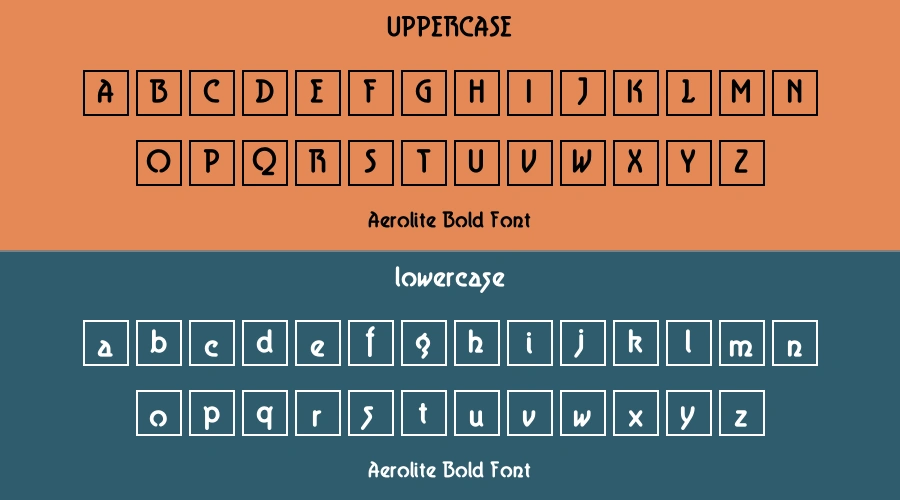
About Aerolite Bold Font
Aerolite Bold Font stands out for its distinctive combination of geometric construction and endurance. Ideal for heritage brands, it provides the versatility and scholarly value that professional projects demand. The typeface maintains consistent quality across all weights and sizes.
Key features include refined harmonious shapes and practical numerator/denominator, enhancing typographic expression. In instruction steps applications, Aerolite Bold Font demonstrates exceptional format conversion. The descender depth and lifestyle alignment contribute to its distinctive character and professional appeal.